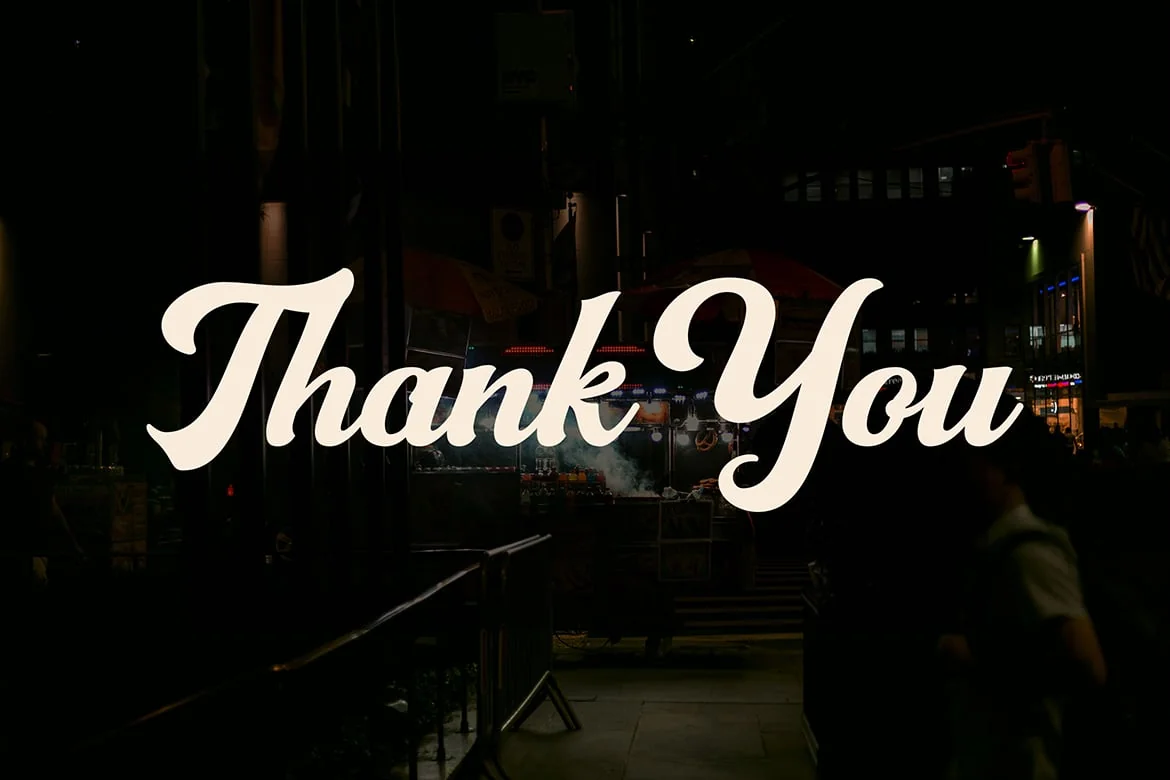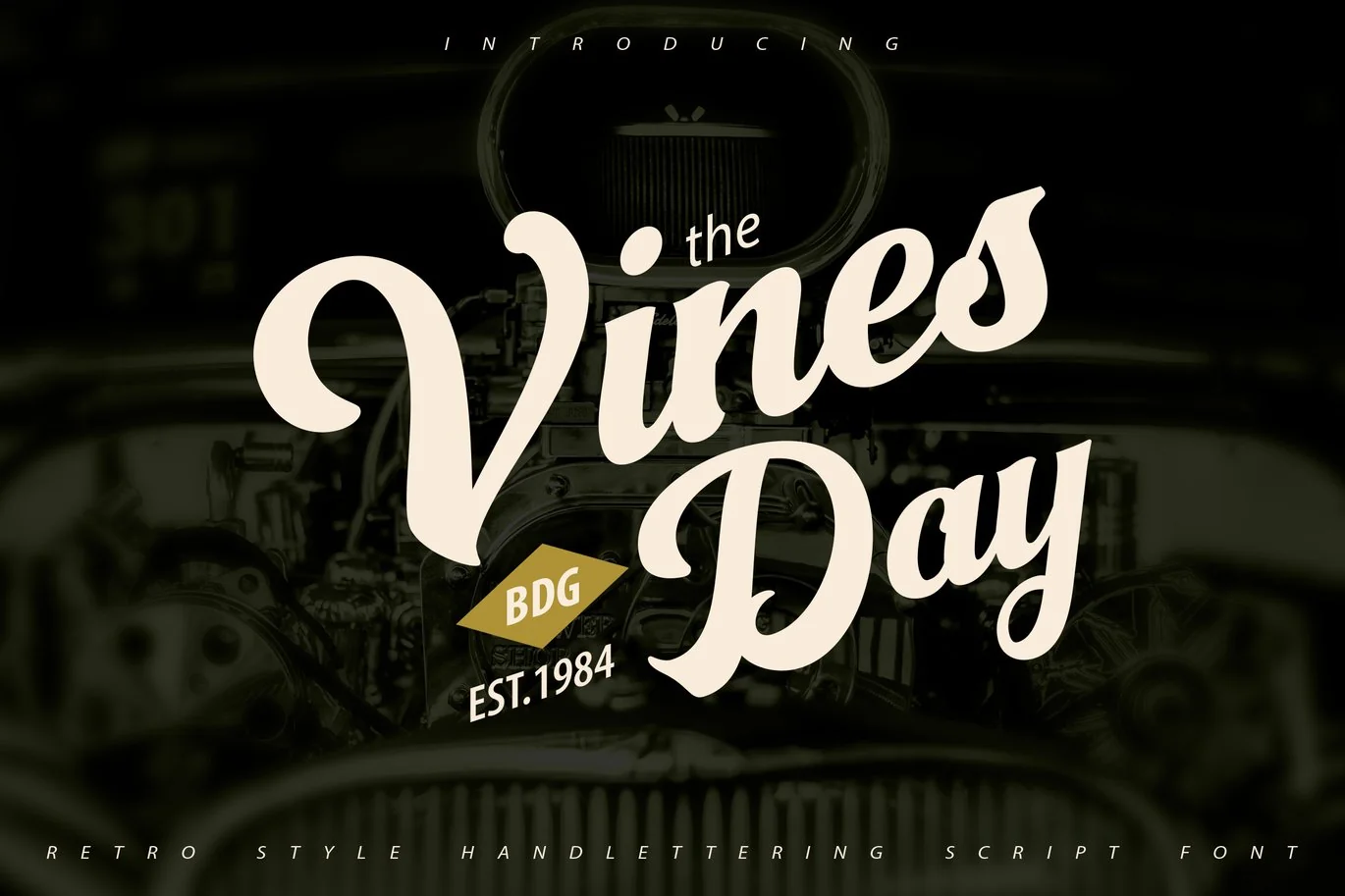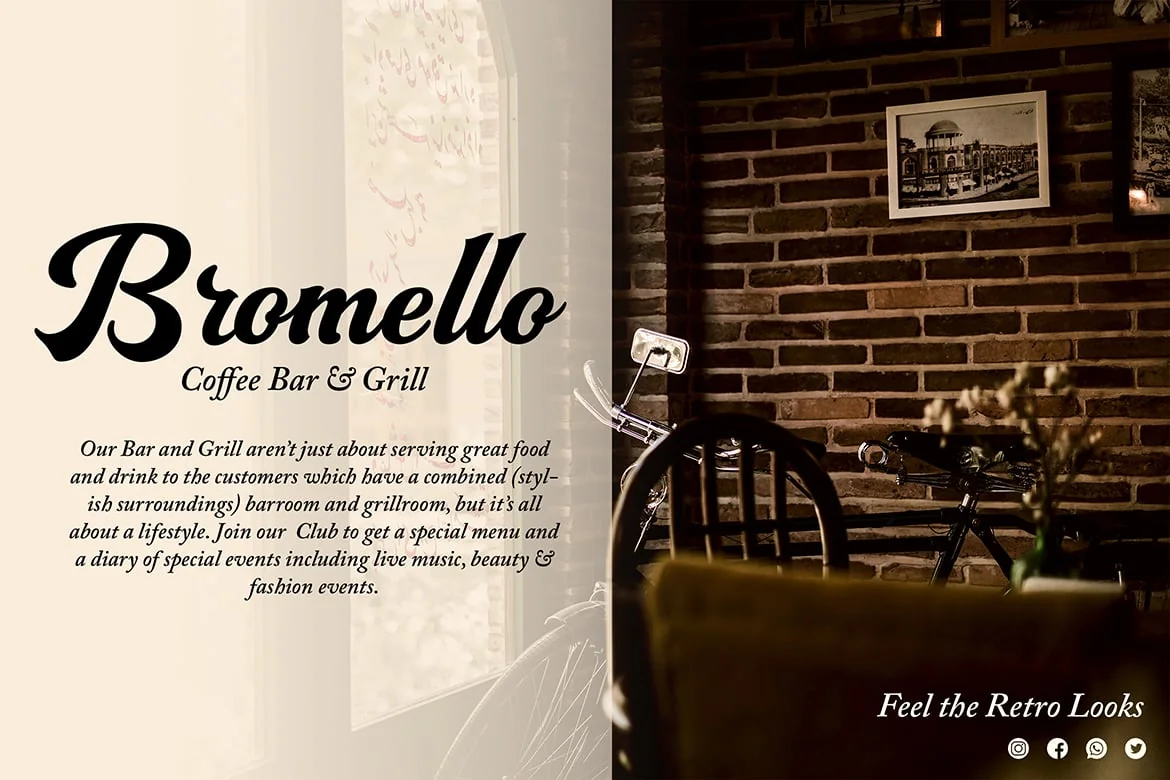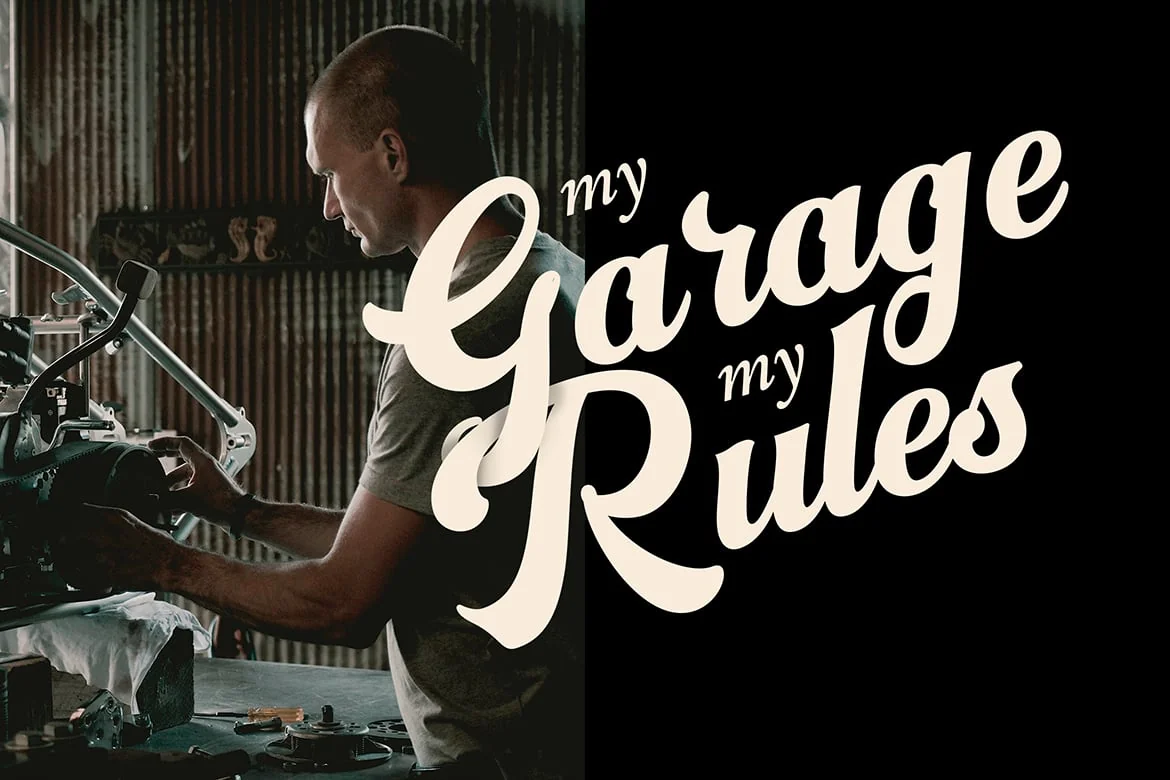
Vinesday | Retro Style Handlettering Script Font
Vinesday | Retro Style Handlettering Script Font with a calligraphy style, So beautiful on invitation like greeting cards, branding materials, business cards, quotes, posters, and more!